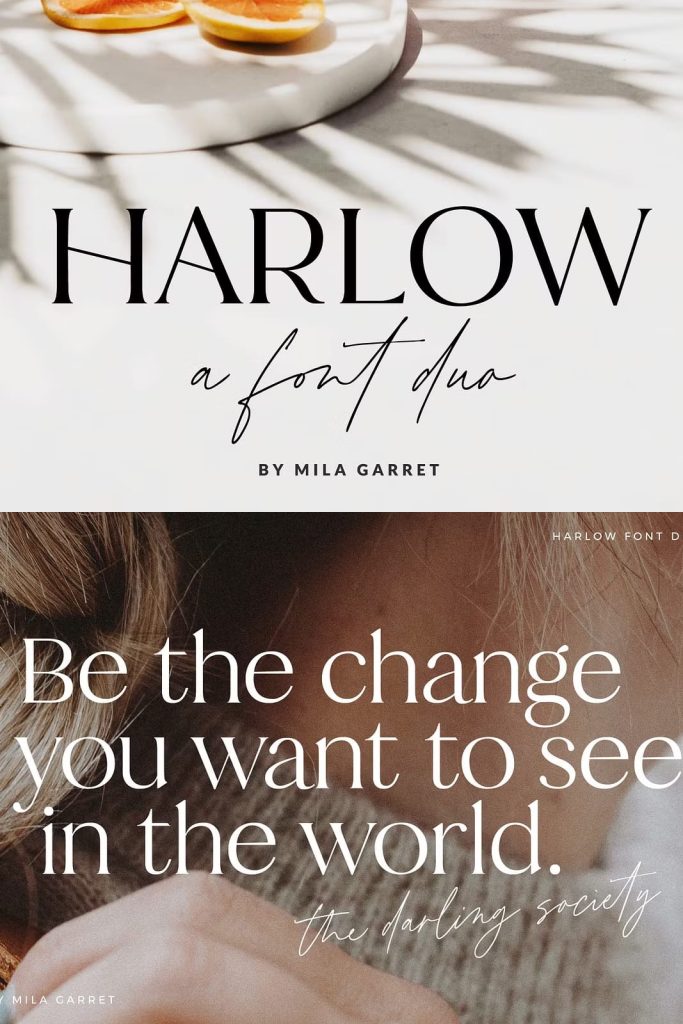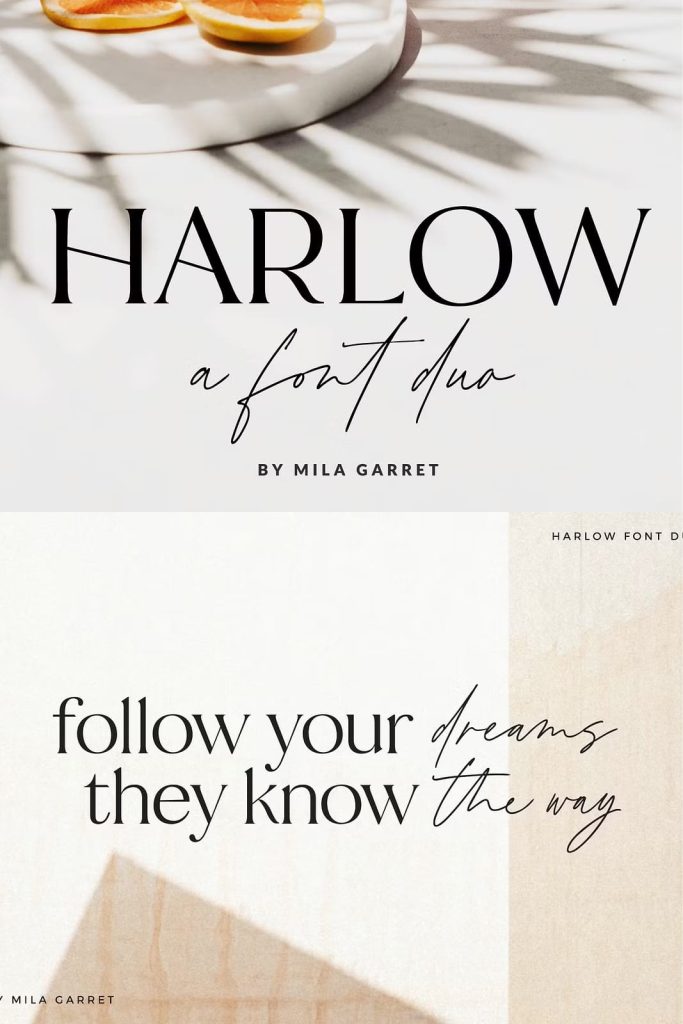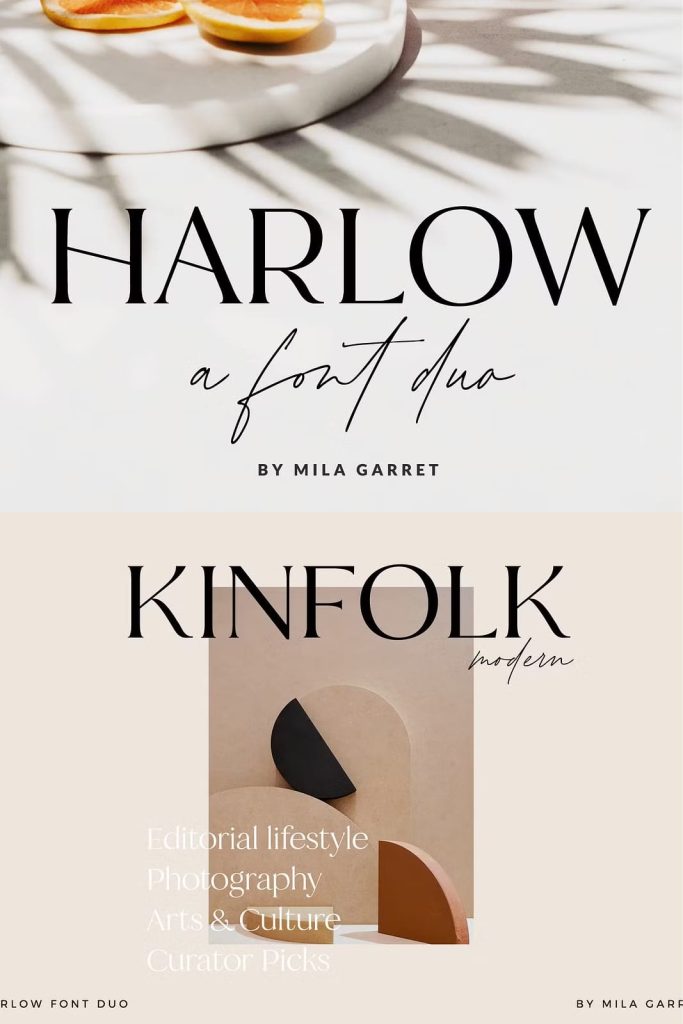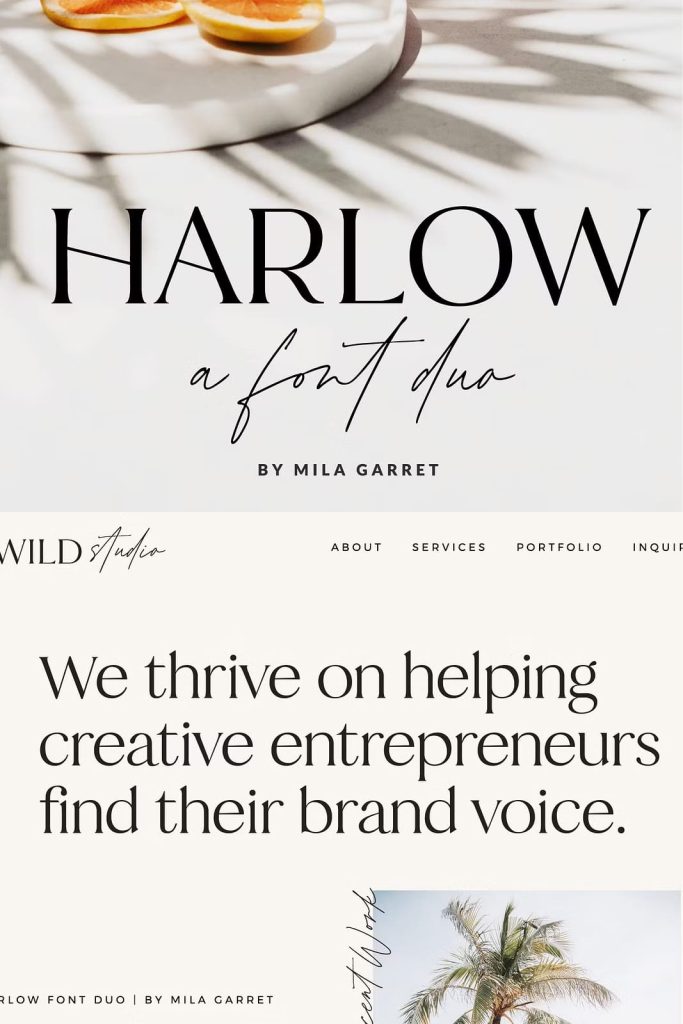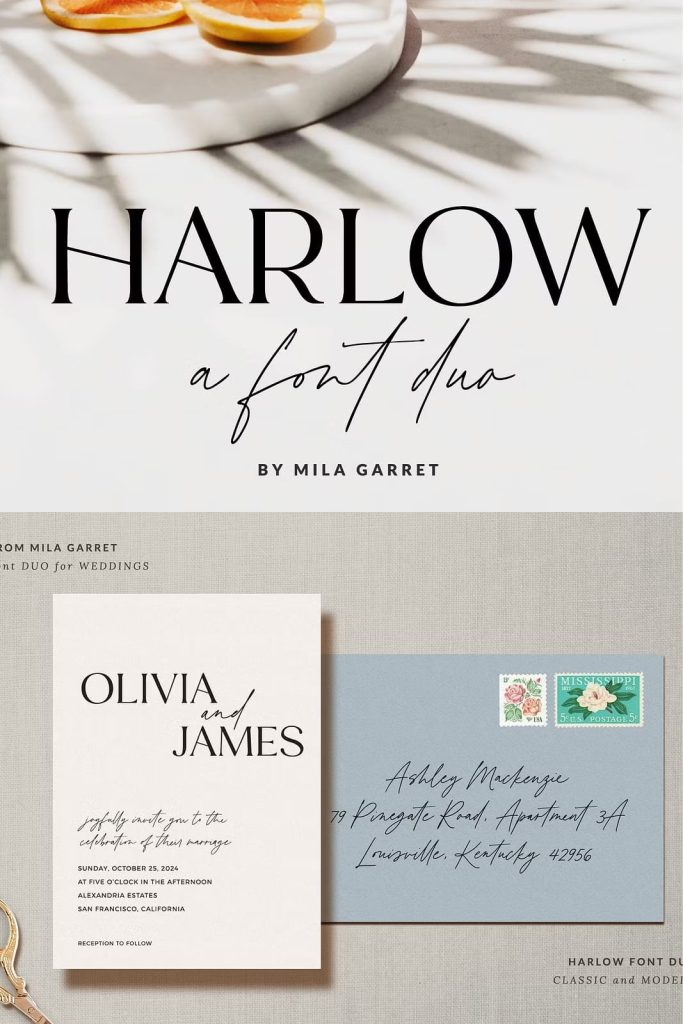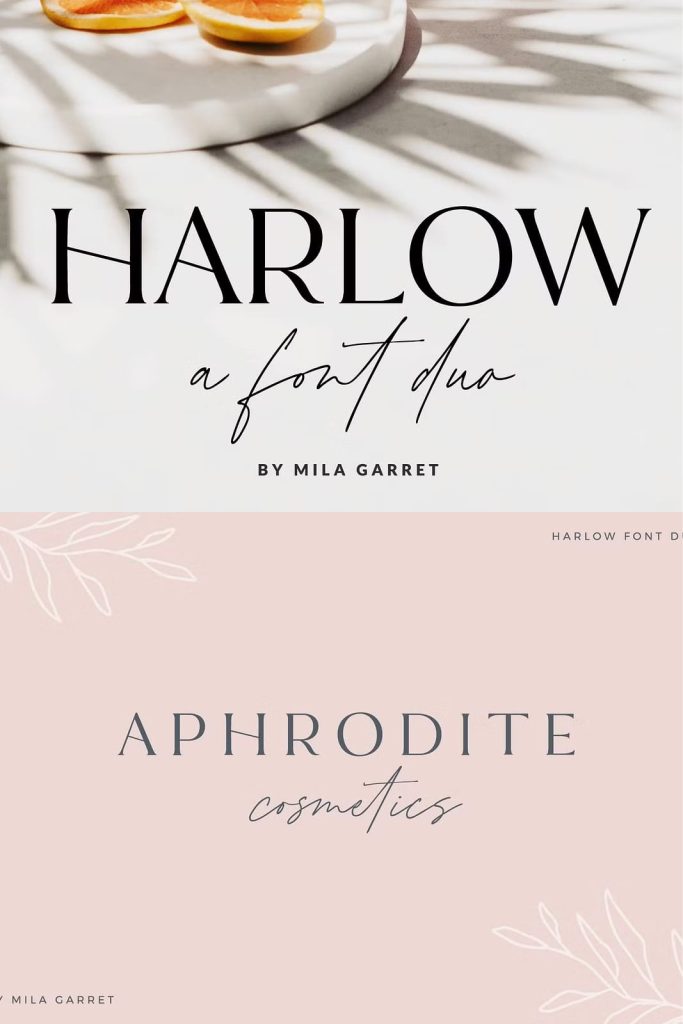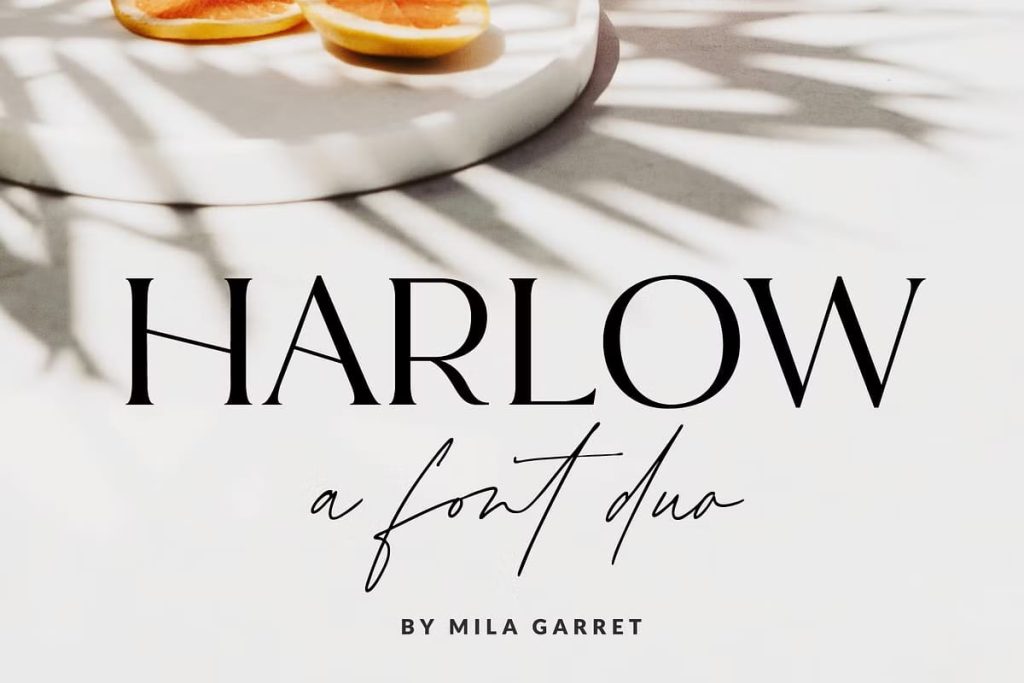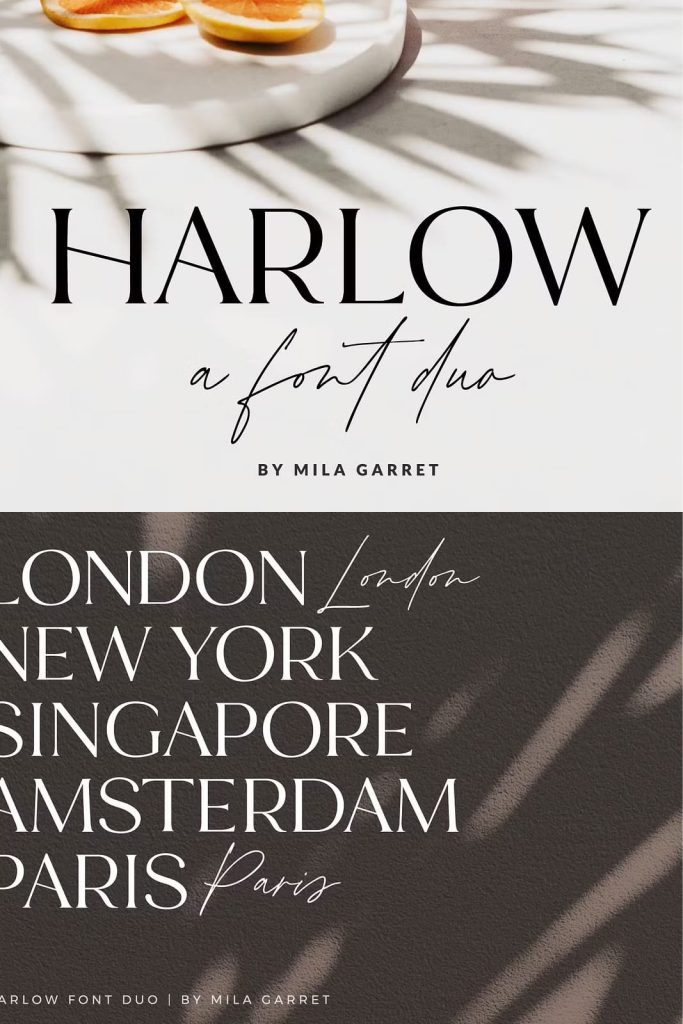
Harlow Font Duo: Elegant Serif and Casual Script for Modern Luxury Design
Harlow Font Duo delivers a refined balance between elegance and simplicity by combining a sophisticated serif typeface with a relaxed handwritten script. This pairing creates a versatile typographic system that allows designers to build clean, modern, and luxurious visual identities. With its minimalist approach and carefully crafted details, Harlow Font Duo transforms everyday text into a polished and expressive design element.
This font duo does more than provide contrast. It creates harmony between structure and personality. The serif style offers clarity and professionalism, while the handwritten script introduces warmth and individuality. Together, they give designers the ability to craft designs that feel both elevated and approachable.
An Elegant Serif for Clean and Modern Structure
The serif component of Harlow Font Duo establishes a strong visual foundation. Its clean lines, balanced proportions, and subtle contrast create a modern look that feels both timeless and refined. This serif style focuses on readability while maintaining a sense of luxury, making it ideal for high-end design projects.
Designers can use this serif font to create headlines, body text, and structured layouts that require clarity and consistency. Its minimalist design ensures that it integrates seamlessly into a wide range of visual styles without overwhelming the composition.
Minimalist Details with Maximum Impact
The serif typeface avoids unnecessary decoration and instead emphasizes precision and balance. Each letterform has been carefully shaped to create a smooth visual rhythm across text. This attention to detail allows the font to perform effectively in both large display sizes and smaller text applications.
This minimalist approach gives designers the flexibility to pair the serif with other design elements while maintaining a clean and cohesive look. It supports both subtle elegance and bold visual statements.
A Casual Handwritten Script for Warm Expression
The handwritten script in Harlow Font Duo introduces a natural and fluid style that contrasts beautifully with the structured serif. Its smooth curves and relaxed strokes create a sense of movement and personality. This script feels personal and inviting, making it perfect for adding a human touch to designs.
Designers can use the script to highlight key phrases, create signatures, or add decorative accents. It enhances the emotional connection between the design and its audience, making the overall composition more engaging.
Soft Curves and Natural Flow
The script style features organic shapes that mimic real handwriting. These subtle variations add depth and authenticity to the design. The natural flow between letters creates a cohesive and visually pleasing appearance.
This quality allows designers to create typography that feels expressive without losing readability. It works particularly well in projects that require a balance between professionalism and creativity.
Perfect for Modern Branding and Digital Design
Harlow Font Duo adapts effortlessly to modern branding and digital applications. Its clean and luxurious aesthetic makes it suitable for a wide range of industries, from fashion and beauty to lifestyle and creative businesses. Designers can use it to build strong visual identities that feel contemporary and sophisticated.
In website design, the font duo enhances readability while maintaining a polished look. The serif provides structure for content, while the script adds visual interest and personality. This combination creates a balanced and engaging user experience.
Ideal for Logos, Social Media, and Creative Content
Harlow Font Duo performs exceptionally well in logo design. The serif establishes a professional tone, while the script adds a unique and memorable signature. This pairing helps brands stand out while maintaining a cohesive identity.
In social media design, the font duo creates eye-catching visuals that capture attention quickly. Designers can use it to craft quotes, promotional graphics, and branded content that feel modern and stylish.
Elegant Choice for Wedding and Lifestyle Design
Harlow Font Duo is a popular choice for wedding stationery and lifestyle design. Its combination of elegance and warmth makes it ideal for invitations, menus, and event branding. The serif adds formality, while the script introduces a romantic and personal touch.
This versatility allows designers to create cohesive designs that feel both sophisticated and heartfelt. It enhances the overall aesthetic while maintaining clarity and readability.
Bringing Luxury and Simplicity Together
The true strength of Harlow Font Duo lies in its ability to combine luxury with simplicity. It avoids excessive decoration while still delivering a high-end look. This balance makes it suitable for both minimal and more expressive design approaches.
Conclusion
Harlow Font Duo offers a seamless blend of elegant serif structure and casual handwritten script. Its modern, clean, and luxurious style makes it a powerful tool for branding, websites, logos, social media, and wedding design. By combining clarity with personality, Harlow Font Duo enables designers to create visually compelling work that feels both sophisticated and approachable.